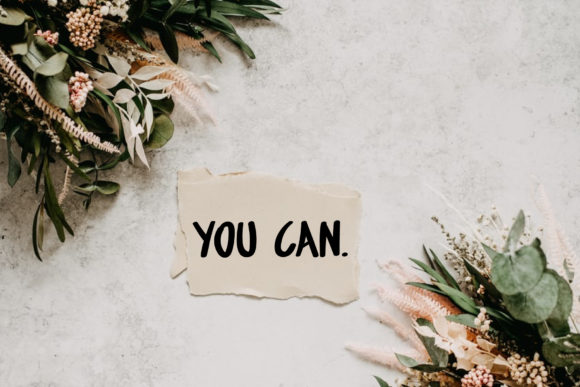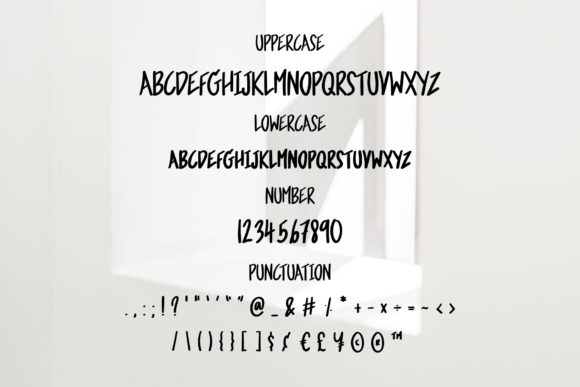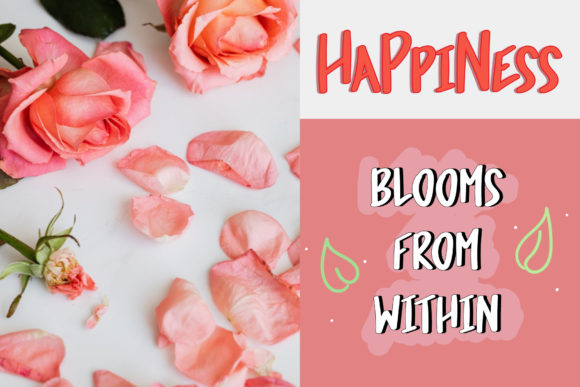
Introduction to Refill Font
Have you ever stared at a blank canvas, struggling to find the perfect design resource to bring your creative project to life? I know I have. And then, suddenly, a spark of inspiration strikes, and you stumble upon the perfect font to set the tone for your design. For me, that moment came when I discovered the Refill Font – a fun, casual, and readable handwritten font that’s perfect for informal design ideas.
The Refill Font is a game-changer for designers looking to add a touch of personality to their work. Its high-quality design and endless variations make it an invaluable asset for any creative project. And the best part? It’s available for free download, complete with a transparent background that lets your design shine.
Whether you’re working on a personal project or a client’s design, the Refill Font is sure to bring a smile to your face and a touch of whimsy to your design. So why not give it a try and see how it can elevate your creative project?
Key Features of Refill Font
- High-quality font with transparent background for seamless design integration
- Perfect for use in logos, branding, and other creative applications where a high-quality font is essential
Honest Review: Refill Font
I recently stumbled upon Refill Font, a free download that caught my eye for its high quality and versatility. As a designer, I’m always on the lookout for reliable design resources to elevate my creative projects.
- ✨ High-quality design: The Refill Font boasts crisp, clean lines and a sleek aesthetic that makes it perfect for modern designs.
- ✨ Transparent background: The transparent background option gives users the flexibility to overlay the font on any color or image, making it a great addition to any design project.
However, I did encounter some limitations while using Refill Font:
- ⚠️ Limited font styles: While the font itself is high-quality, the Refill Font library is relatively small compared to other font libraries.
- ⚠️ Compatibility issues: I experienced some compatibility issues with certain design software, which may be a concern for some users.
Overall, I’m impressed with Refill Font’s potential, but its limitations prevent it from being a go-to design resource. If you’re looking for a free, high-quality font to add to your design arsenal, Refill Font is worth checking out. Just be aware of its limitations and compatibility issues.